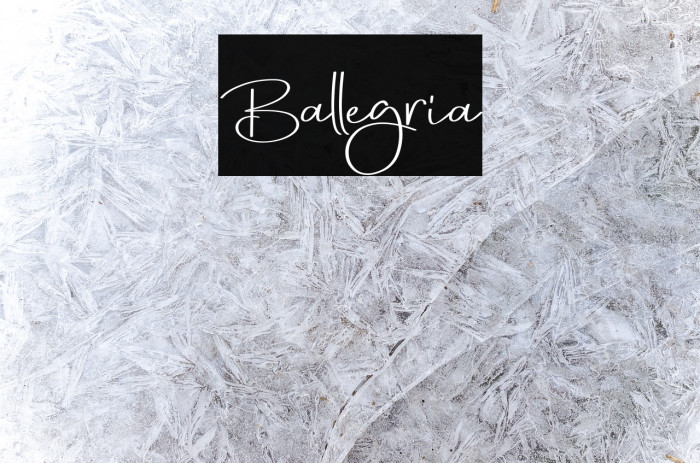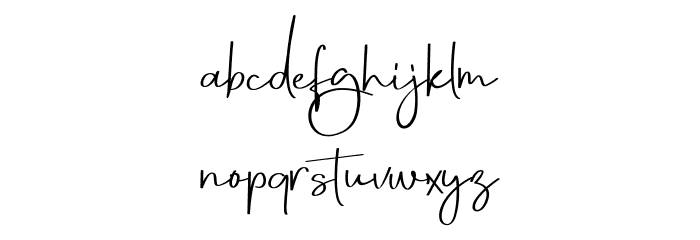
Ballegria Font
Ballegria Description
This font features a delicate and flowing script style, characterized by its elegant and smooth curves. The uppercase letters are tall and slender, with a slight slant that adds a touch of sophistication. The lowercase letters are more rounded and connected, creating a harmonious and fluid appearance. The font maintains a consistent stroke width, giving it a clean and polished look. It is well-suited for projects that require a personal and artistic touch, such as invitations, greeting cards, and branding materials. The special characters complement the overall style, enhancing its versatility.
| Overall Style | Elegant |
| Use Case | Headlines, Artistic projects, Invitations |
| Proposed Projects | Ideal for invitations, greeting cards, branding, and artistic projects. |